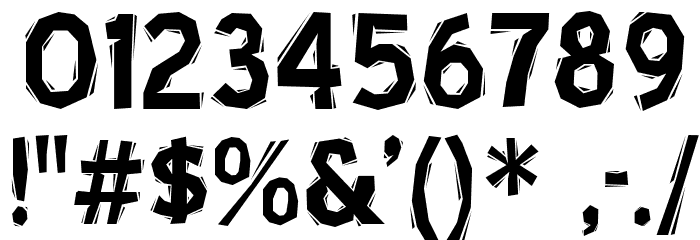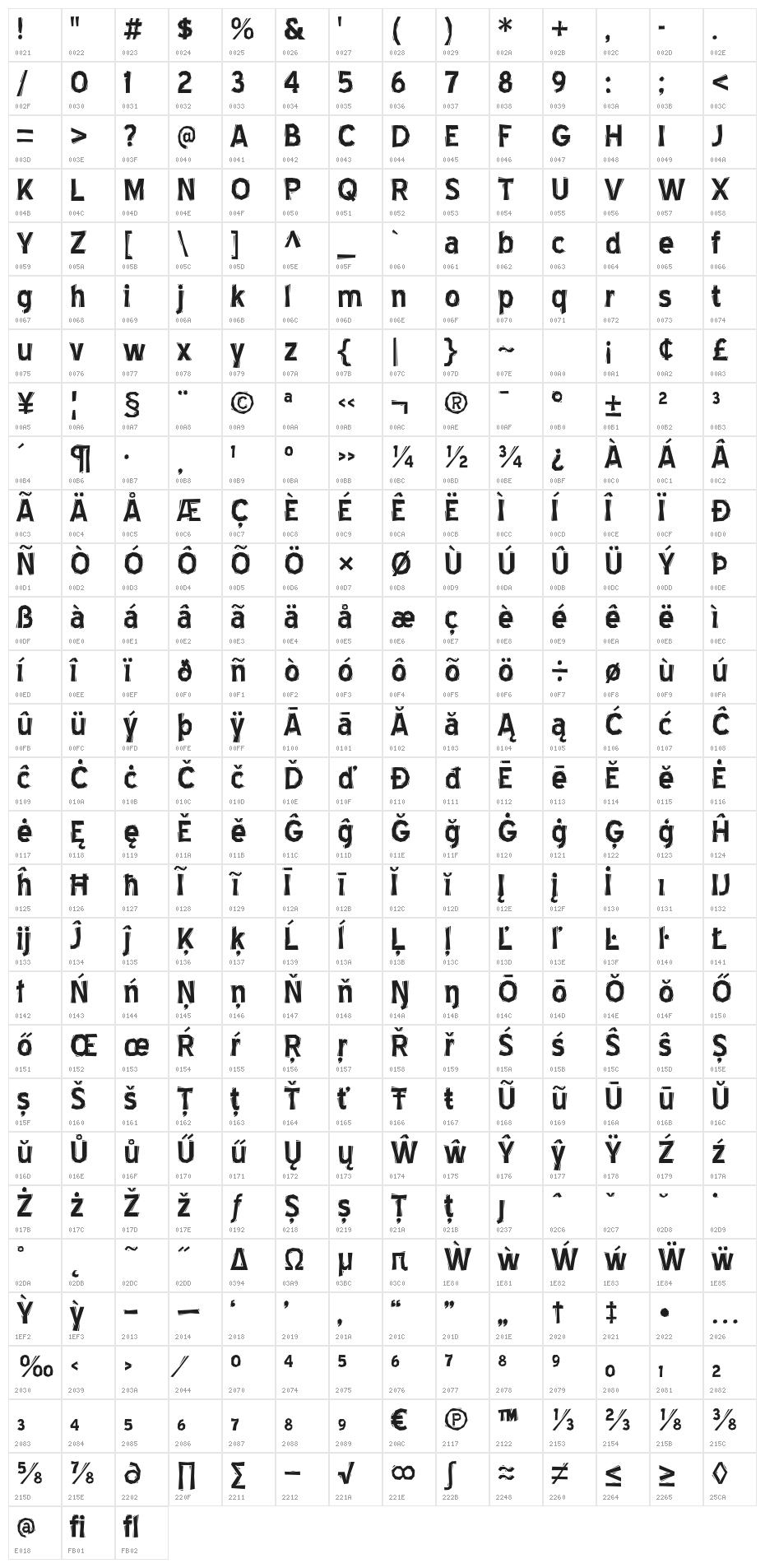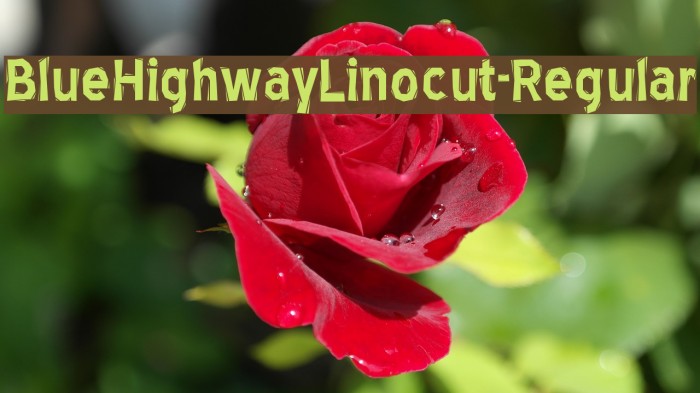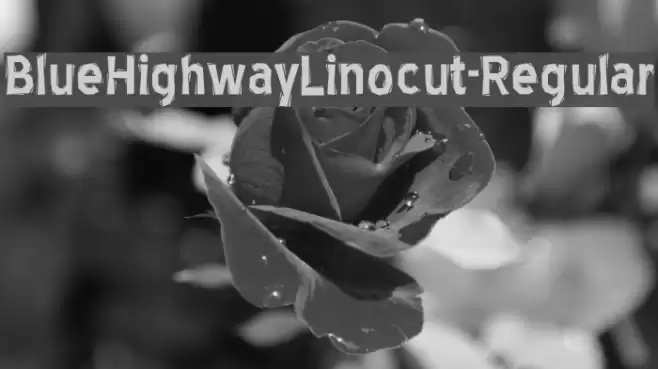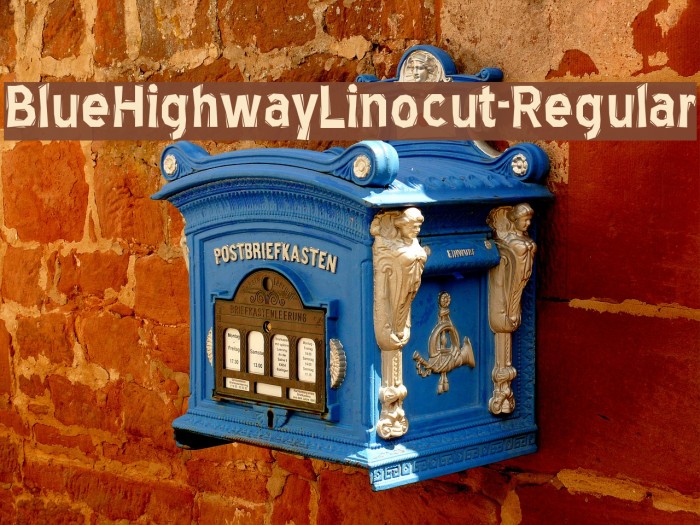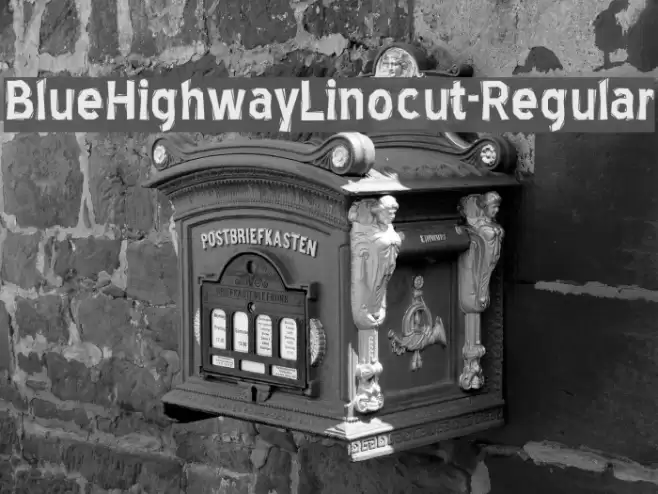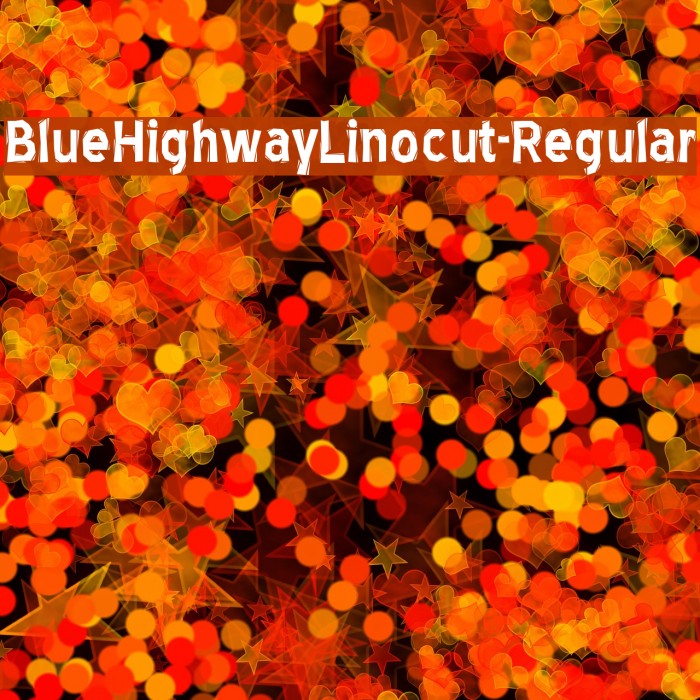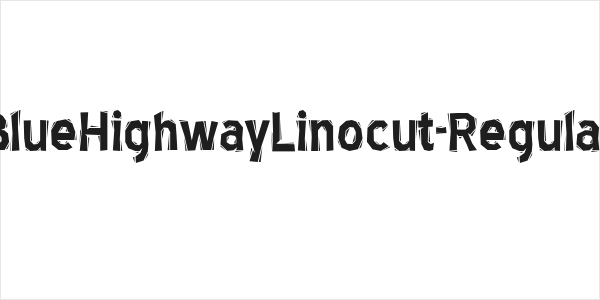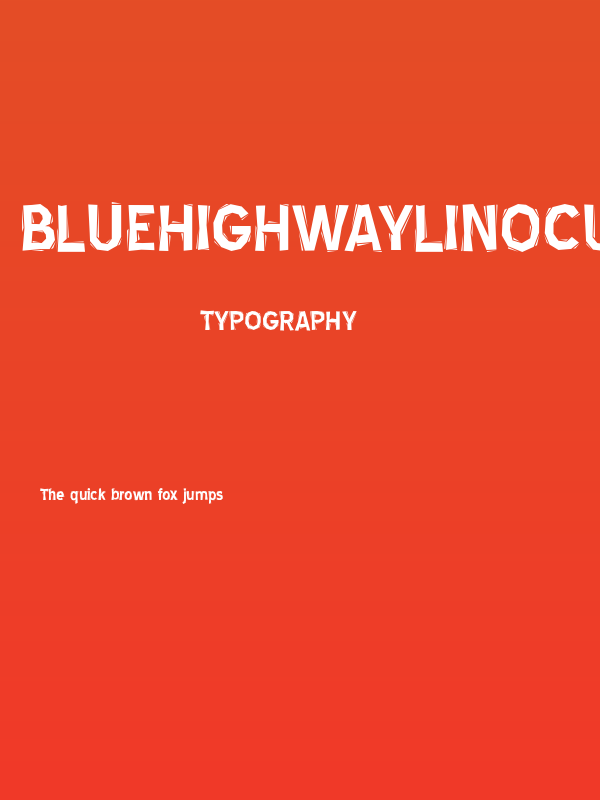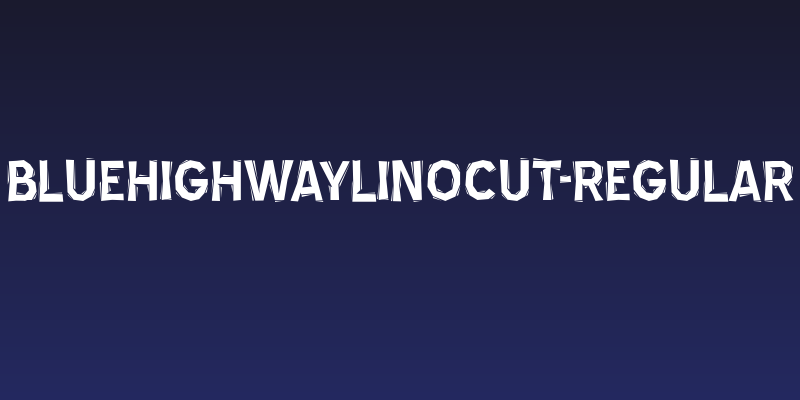
BlueHighwayLinocut-Regular Font
BlueHighwayLinocut-Regular Description
This font features a bold, dynamic style reminiscent of linocut art, characterized by its rough, hand-carved appearance. The letters are angular and sharp, with irregular edges that give a sense of movement and energy. The uppercase and lowercase characters maintain a consistent design, with a slightly condensed form that enhances their boldness. Numbers and special characters follow the same artistic theme, making them stand out with their unique, handcrafted look. This font is perfect for projects that require a touch of artistic flair and a bold statement.
| Proposed Projects | Ideal for posters, album covers, artistic projects, and branding that requires a bold, creative touch. |